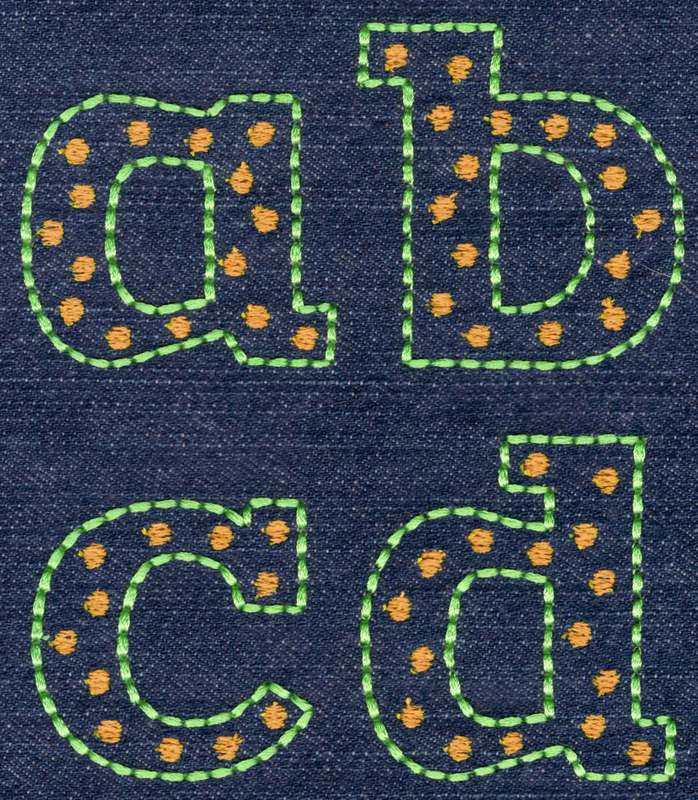
396 Zantroke Floss & Dots Font
Zantroke Floss & Dots Font comes in 2", 3", 4" & 5" heights based on the capital "A". All sizes are finished in Floss Stitch outlines with Fill Stitch dots. Floss Stitch stitches out on all embroidery machines using standard embroidery thread. Some characters in the 3" and 4" sets require 5x7 hoops; and some characters in the 5" require larger than 5x7 hoops.